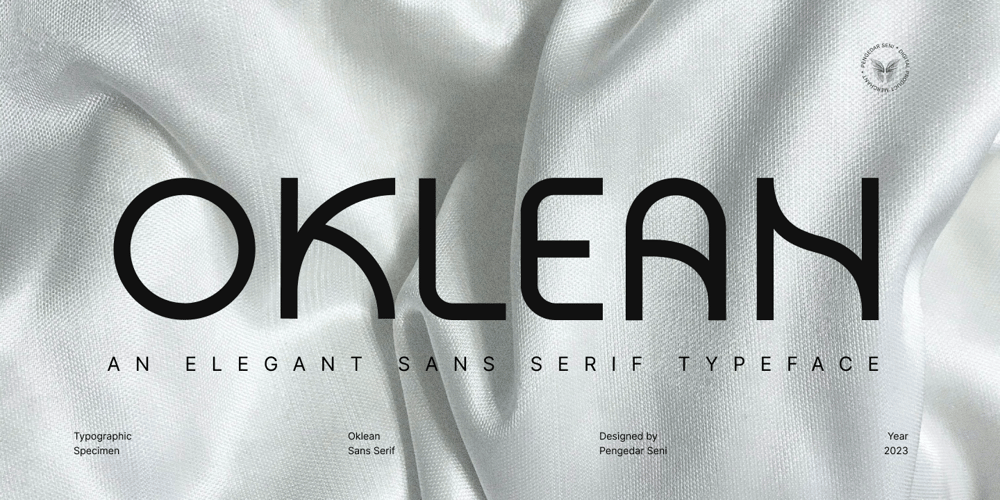
Oklean
Oklean font
Oklean Font Family was designed by Muhamad Yusup and published by Pengedar Seni. Oklean contains 1 styles and family package options. Oklean is a special font for your logo & branding. Every character is designed for a good logo, so they are not suitable for long texts.Oklean has a concept that is : Bright / Clean / Clear / Cool / Nature / Minimal / Smart / Urban / Balanced.